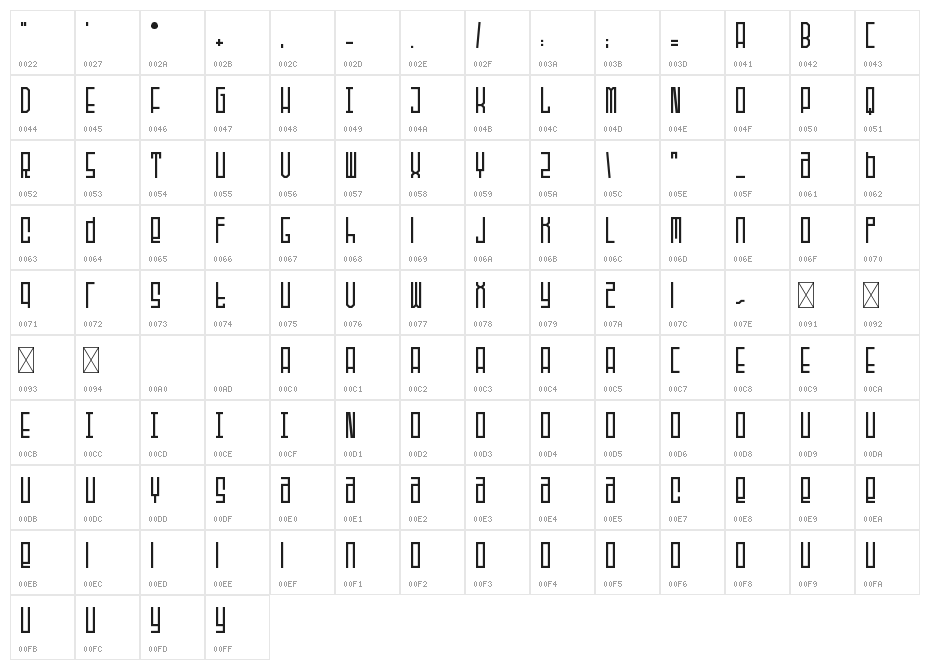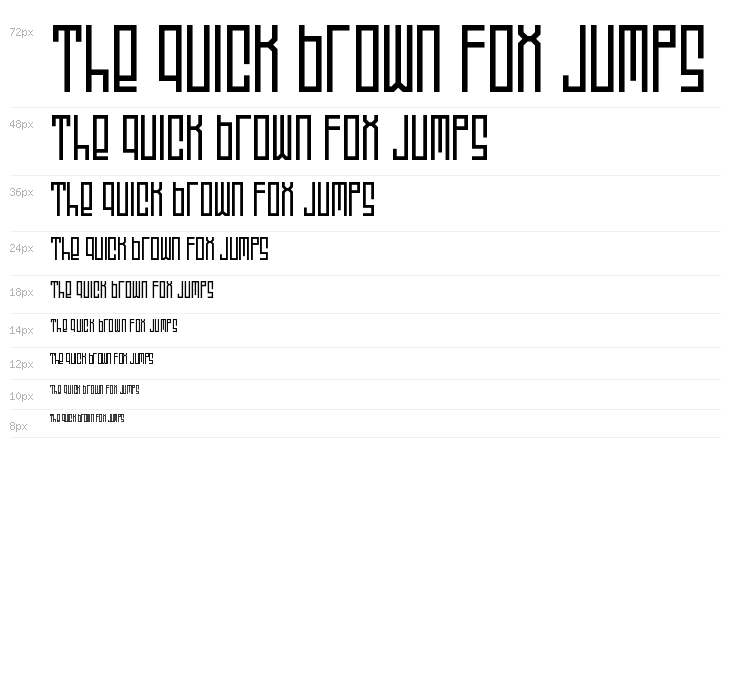
Playlines Free Font
Playlines Free Description
This font features a geometric and modern design with a distinctively tall and narrow structure. The characters are constructed with straight lines and sharp angles, creating a futuristic and digital appearance. The uppercase and lowercase letters maintain a consistent height, contributing to a uniform look. The font's minimalistic style is accentuated by its monospaced nature, where each character occupies the same amount of horizontal space. This design choice enhances readability and gives the font a clean, organized feel. The absence of curves and the presence of angular edges make it ideal for projects that require a contemporary and tech-savvy aesthetic.
| Use Case | Logos, Headlines, Digital interfaces |
| Proposed Projects | Ideal for tech-related branding, digital interfaces, coding displays, and futuristic design projects. |